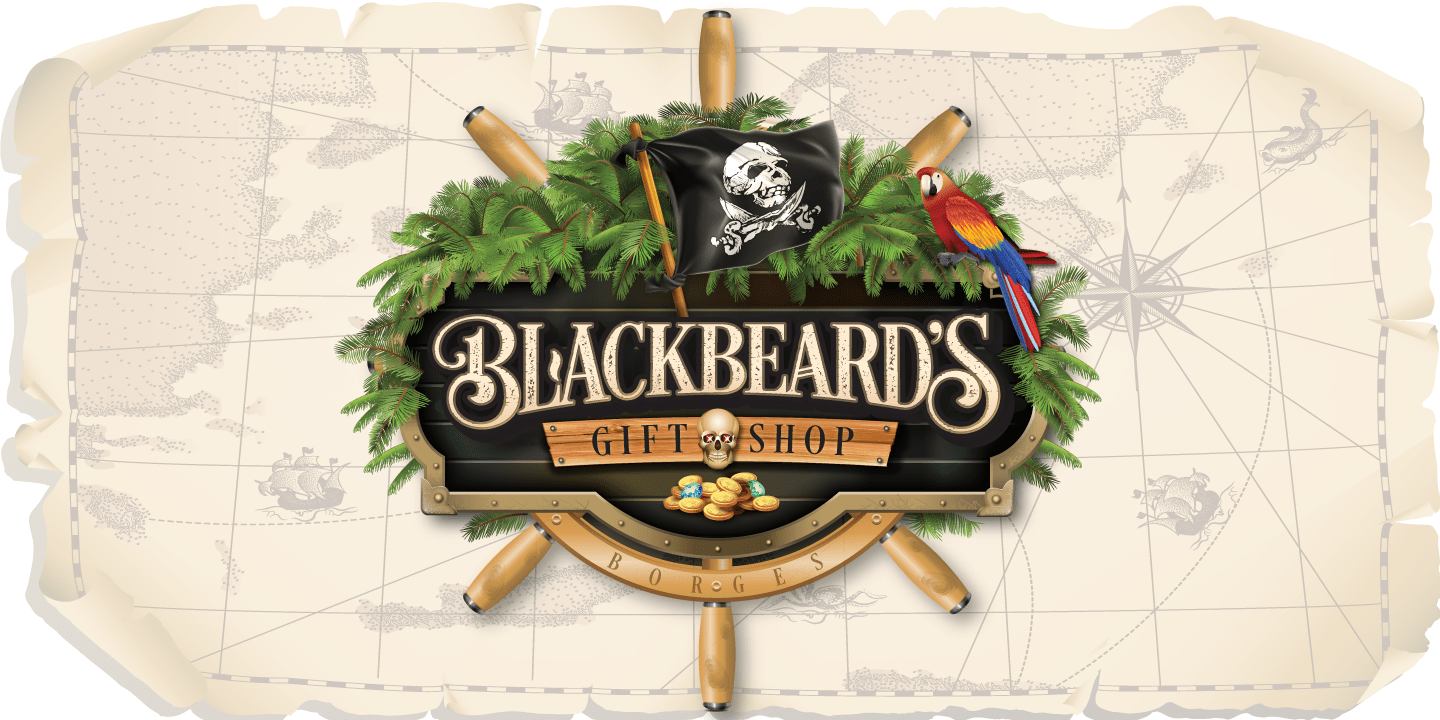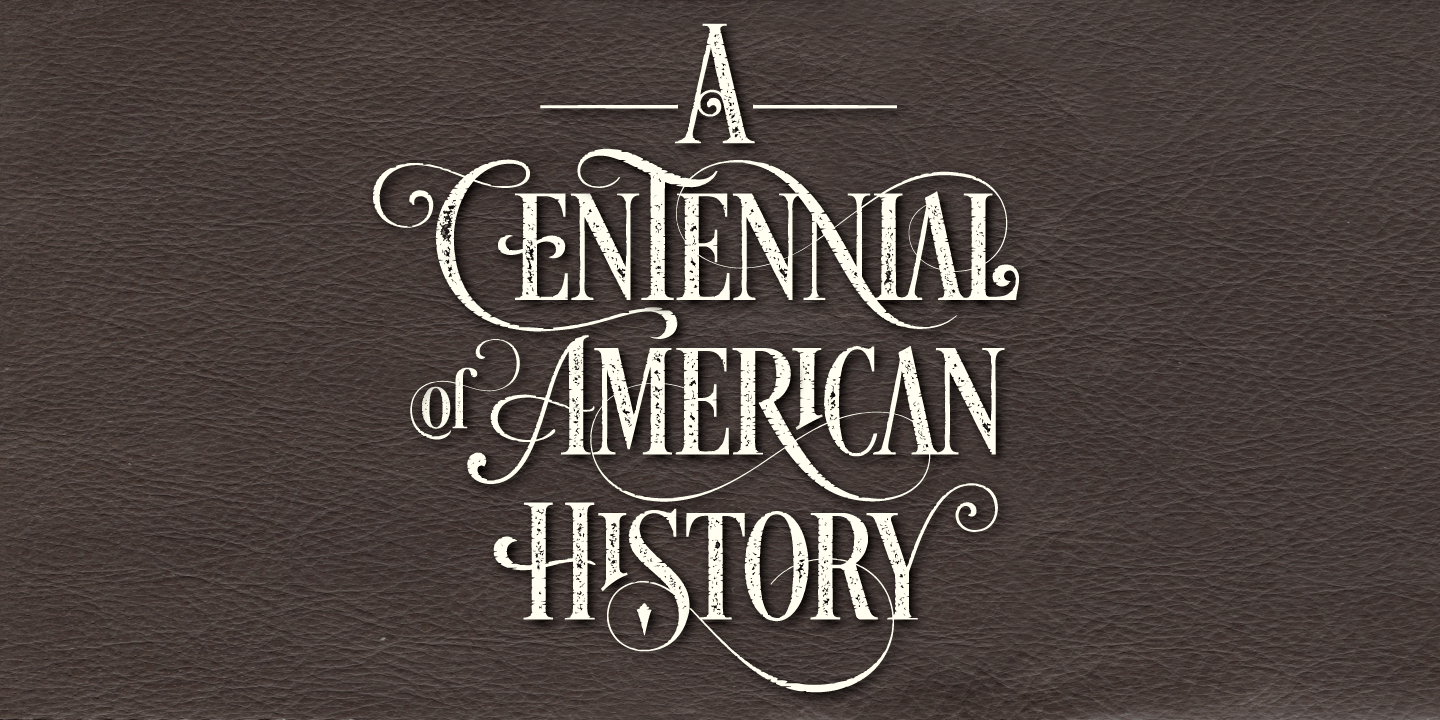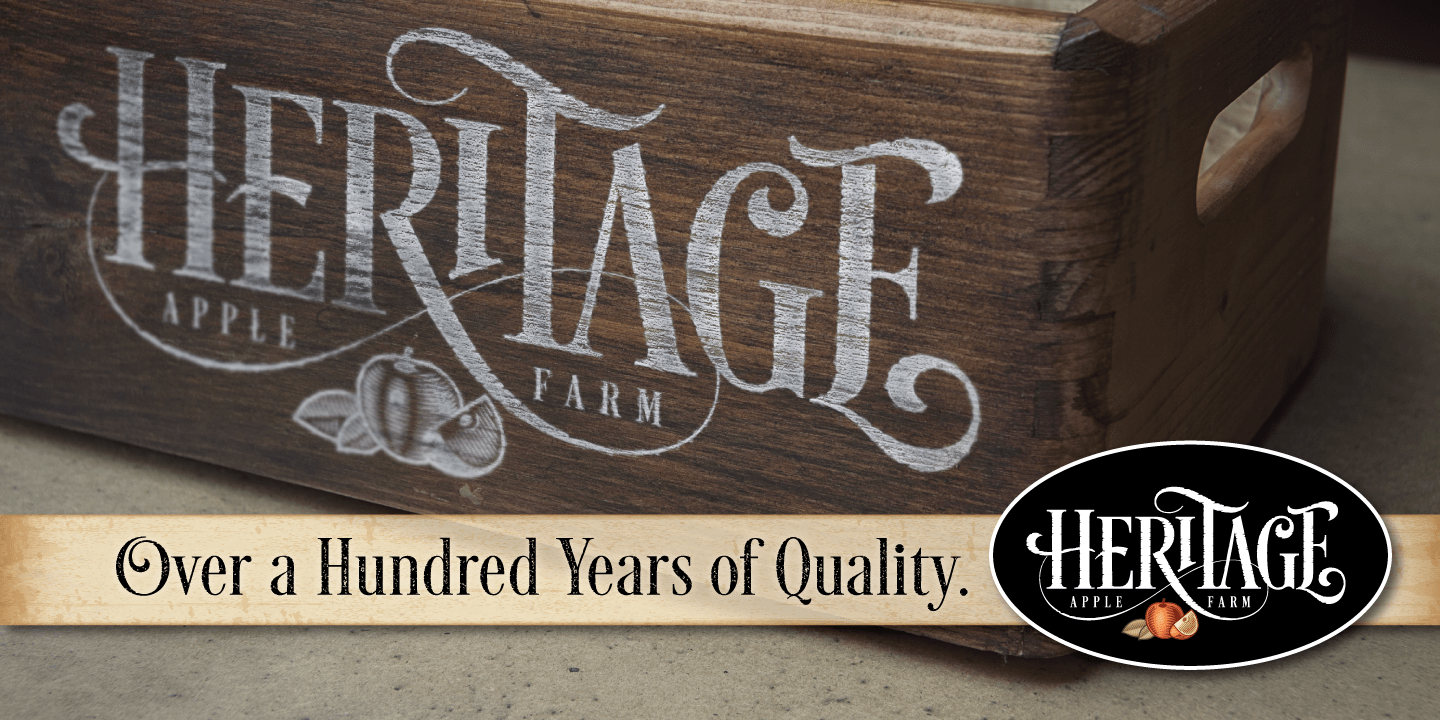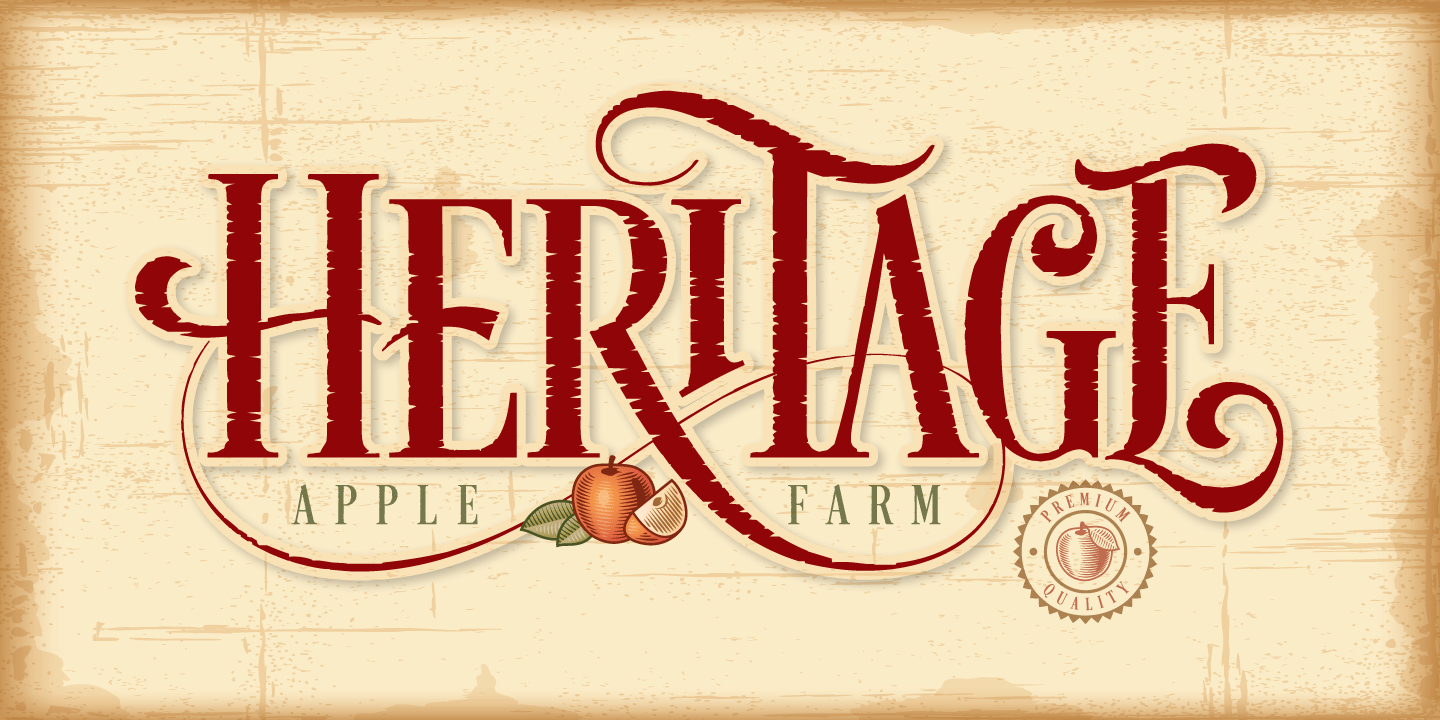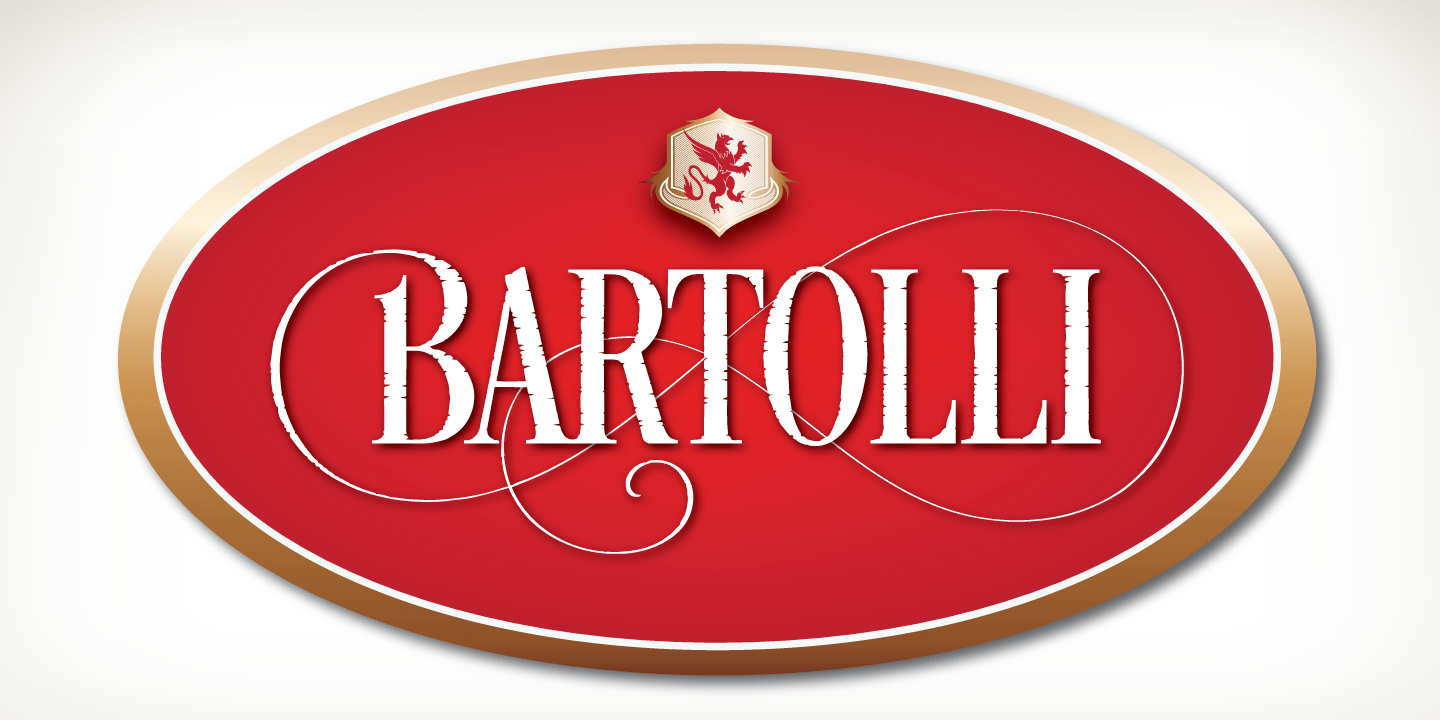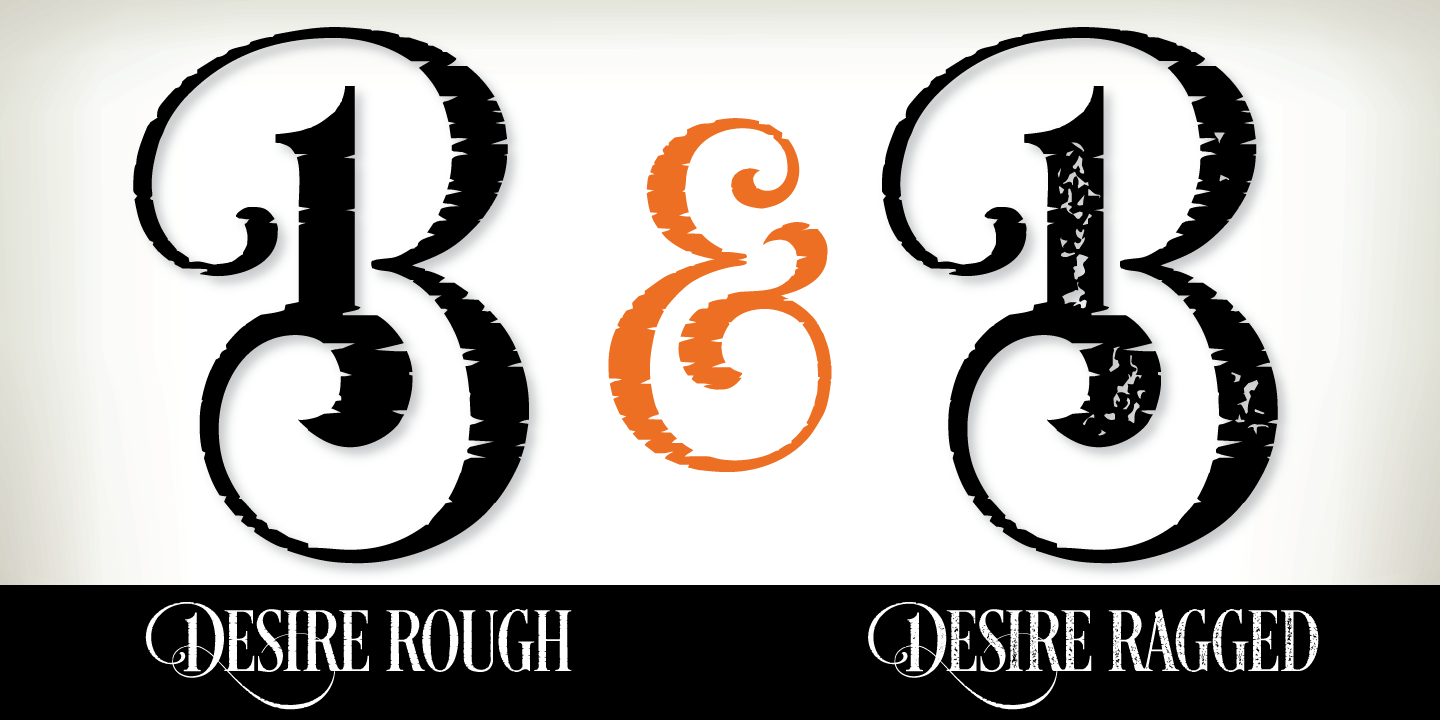
Desire Rough & Ragged
Font Family by CBdO Fonts
Desire Rough has a nice textured edge while Desire Ragged has the textured edge plus a rough fill. Both fonts are included. Featuring 644 alternate letters, 98 ligatures, 8 flourishes and 6 catchwords, Desire Rough & Ragged offers an expansive set of options to create logos, headlines and titling. It is well suited for books, editorial, packaging, advertising, branding and more. From period style and Victorian to modern and elegant, Desire Rough & Ragged is strong and stately yet elegant and decorous. A wide selection of alternate upper and lowercase forms feature delicate line flourishes creating a subtle background for additional letters to rest ? the result is an intertwining and beautifully flourished design. Unique ligatures go beyond function and add eye catching flair and style. Desire Rough & Ragged is truly a designer's dream come true! PDF's of all of the Alternates, Ligatures, Flourishes, and Catchwords is included.